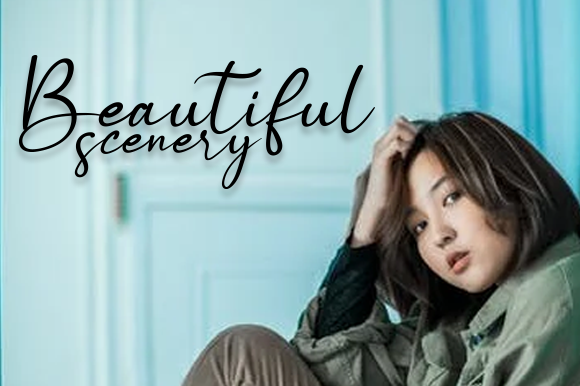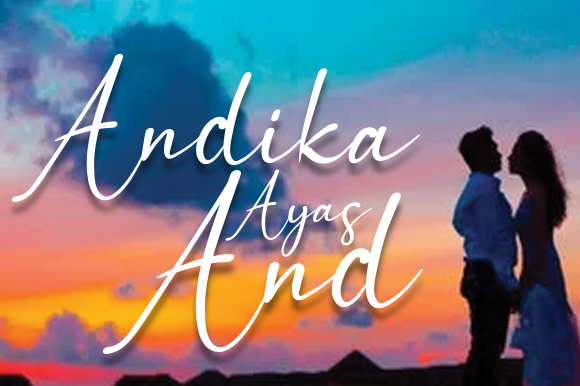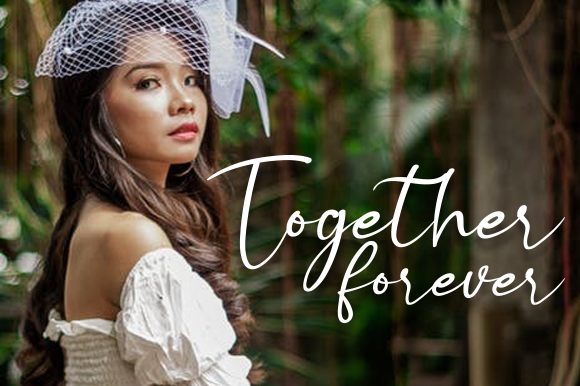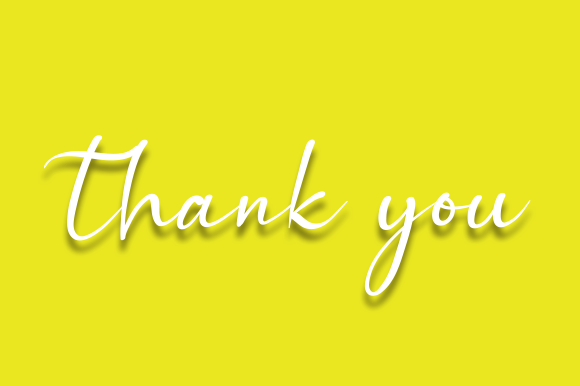
Introduction to Rindu Ain Font
Rindu Ain embodies fun, quirkiness and authenticity.
This handwritten font is the perfect fit for all of your logos, branding, social media, and crafty DIY projects .
Key Features of Rindu Ain Font
Rindu Ain Font offers exceptional quality and versatility, making it a valuable addition to your design toolkit. Whether you’re creating for personal projects or commercial use, Rindu Ain Font delivers professional results.